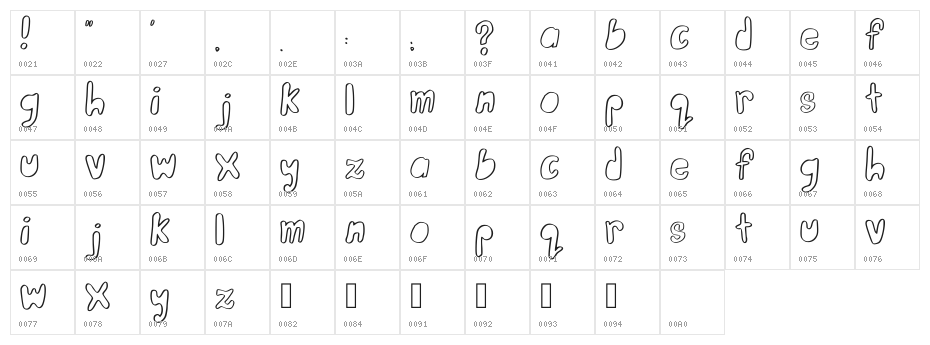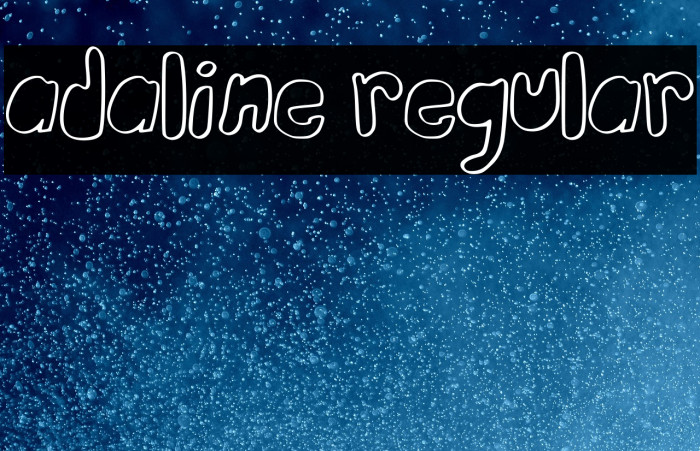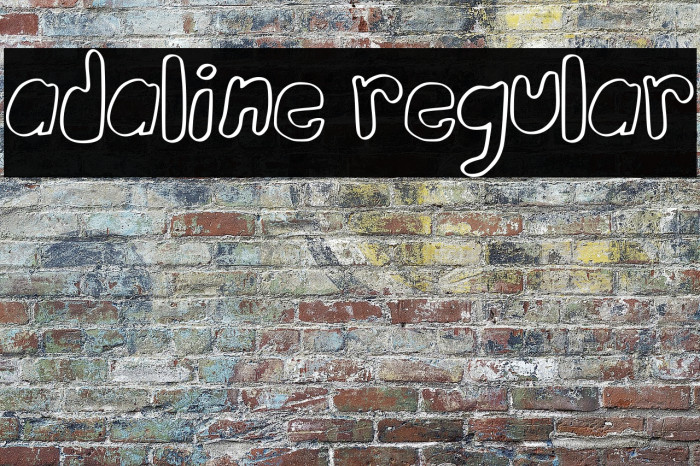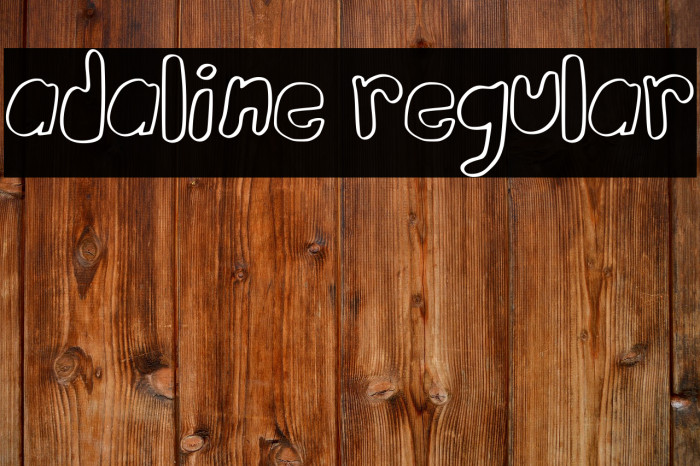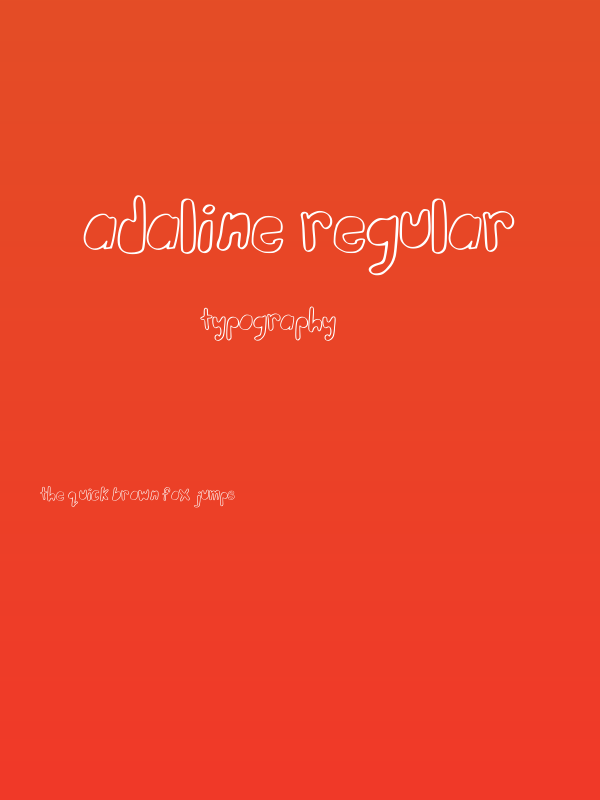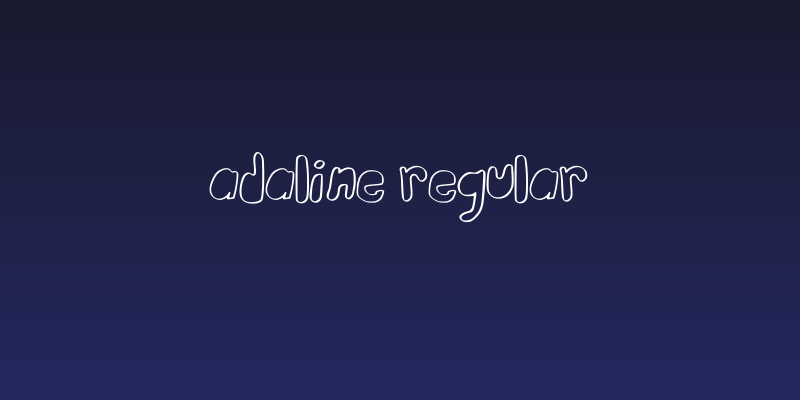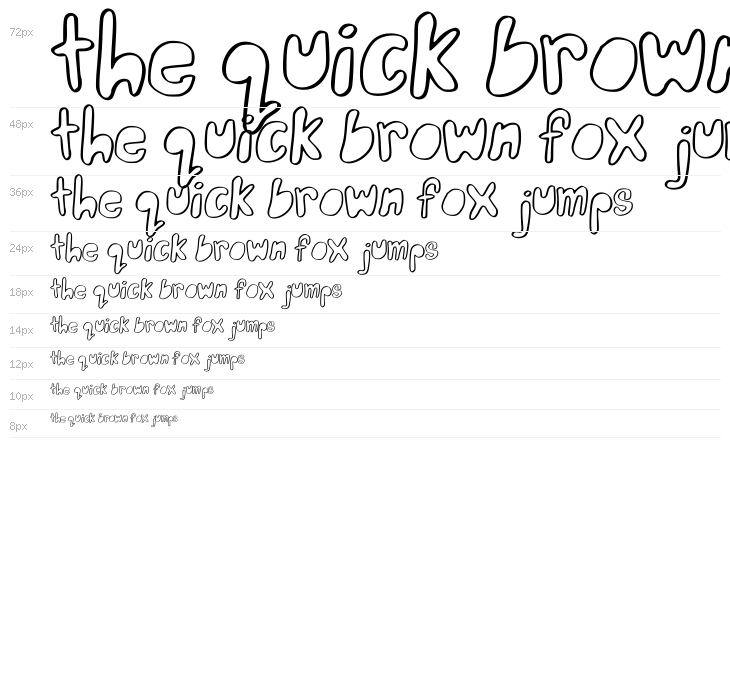
Adaline Regular Font
Adaline Regular Description
This playful and whimsical font features a unique outline style that gives it a hand-drawn appearance. The characters are rounded and slightly irregular, adding a sense of fun and creativity. The font maintains a consistent stroke width throughout, which enhances its legibility while preserving its artistic flair. The lowercase letters have a casual, friendly vibe, while the uppercase letters are bold and eye-catching. This font is perfect for projects that require a touch of personality and charm, such as children's books, greeting cards, or playful branding.
| Proposed Projects | Ideal for children's books, greeting cards, playful branding, and creative posters. |